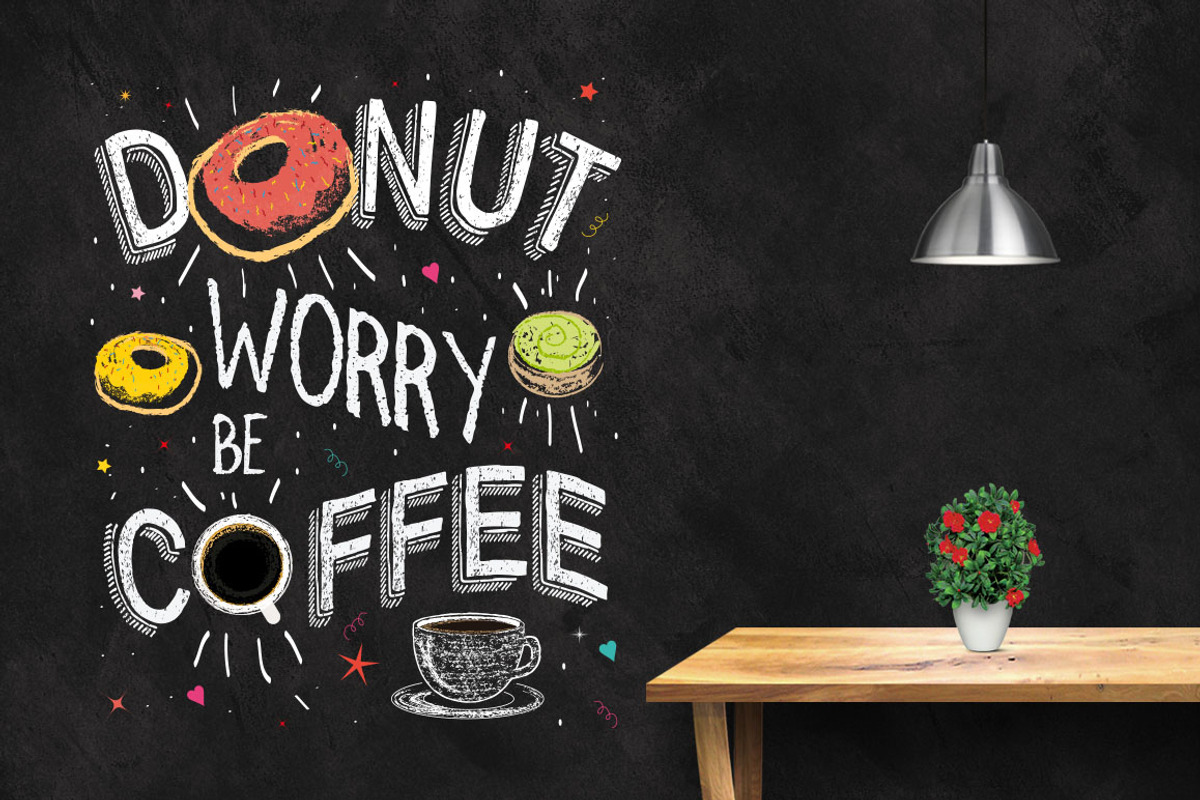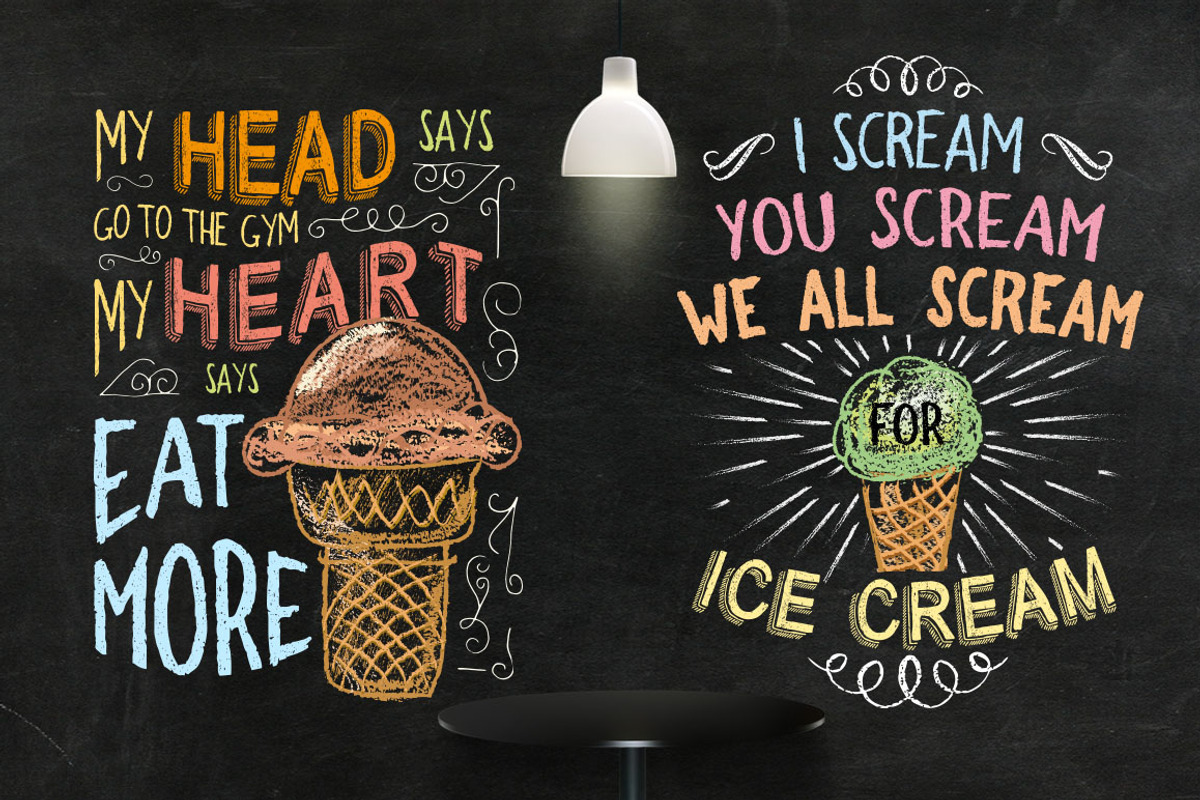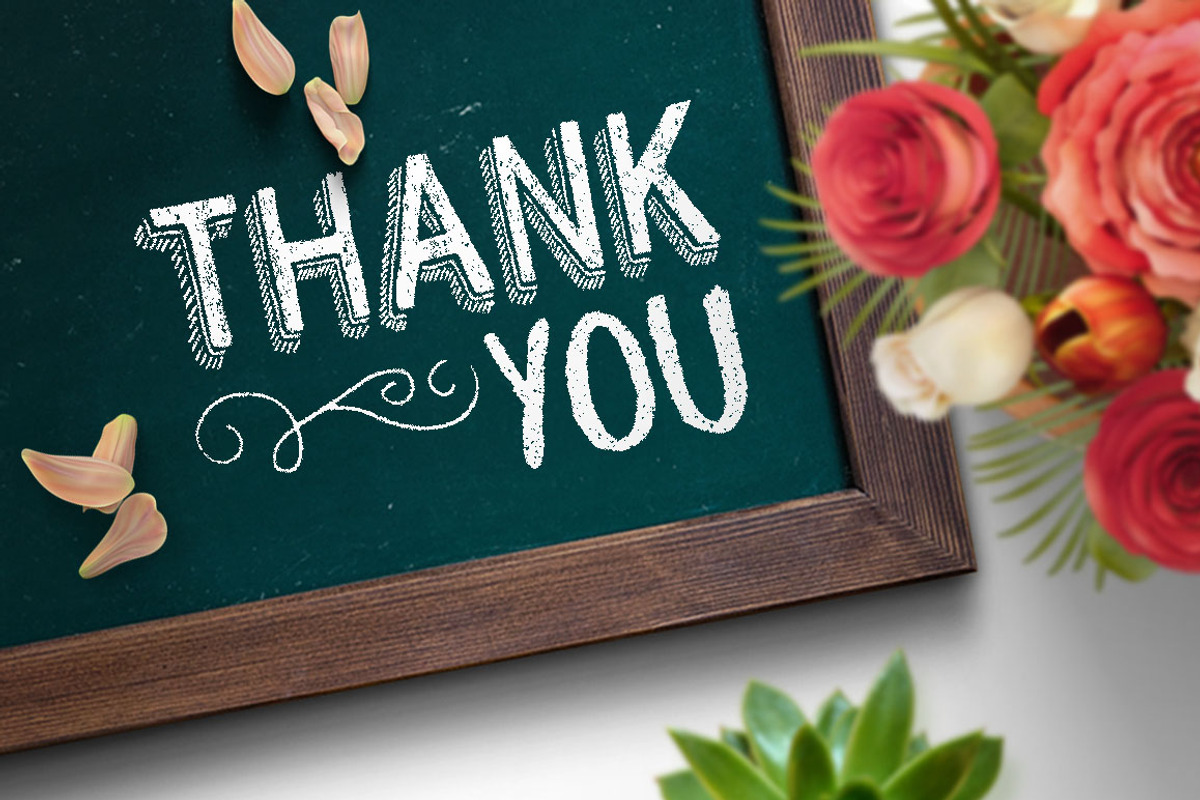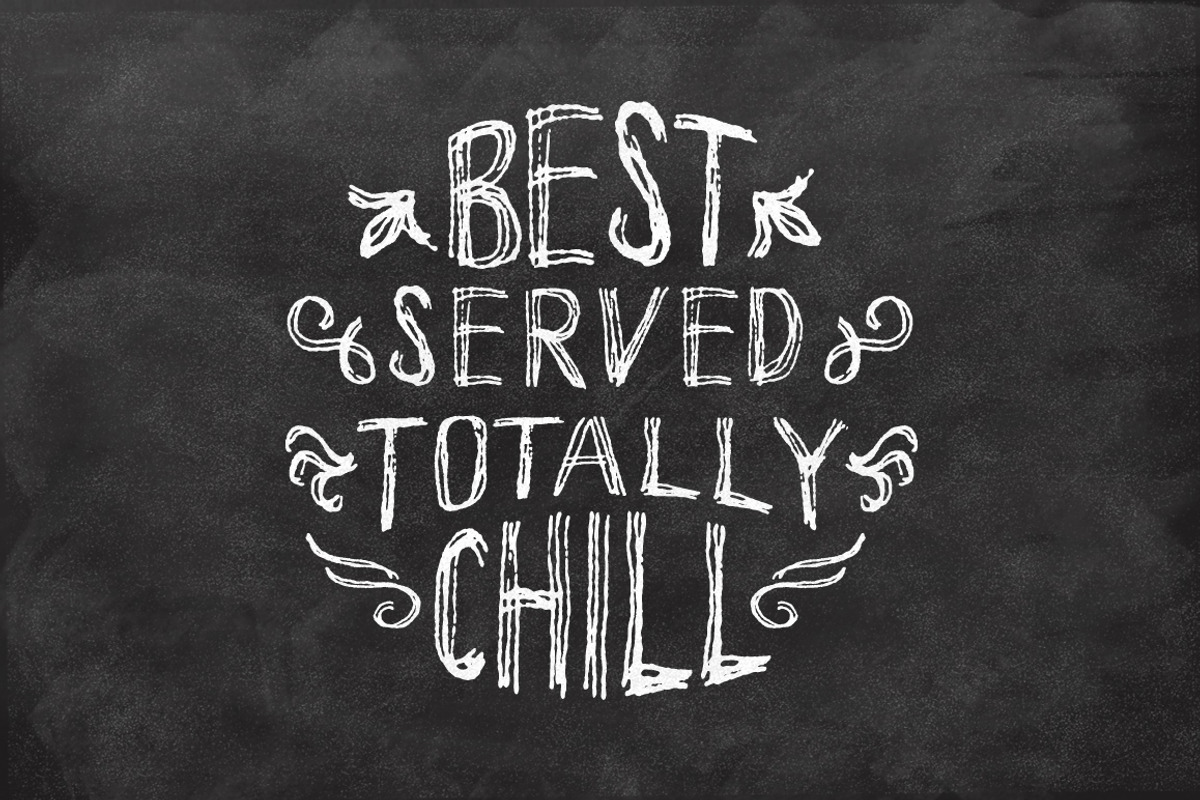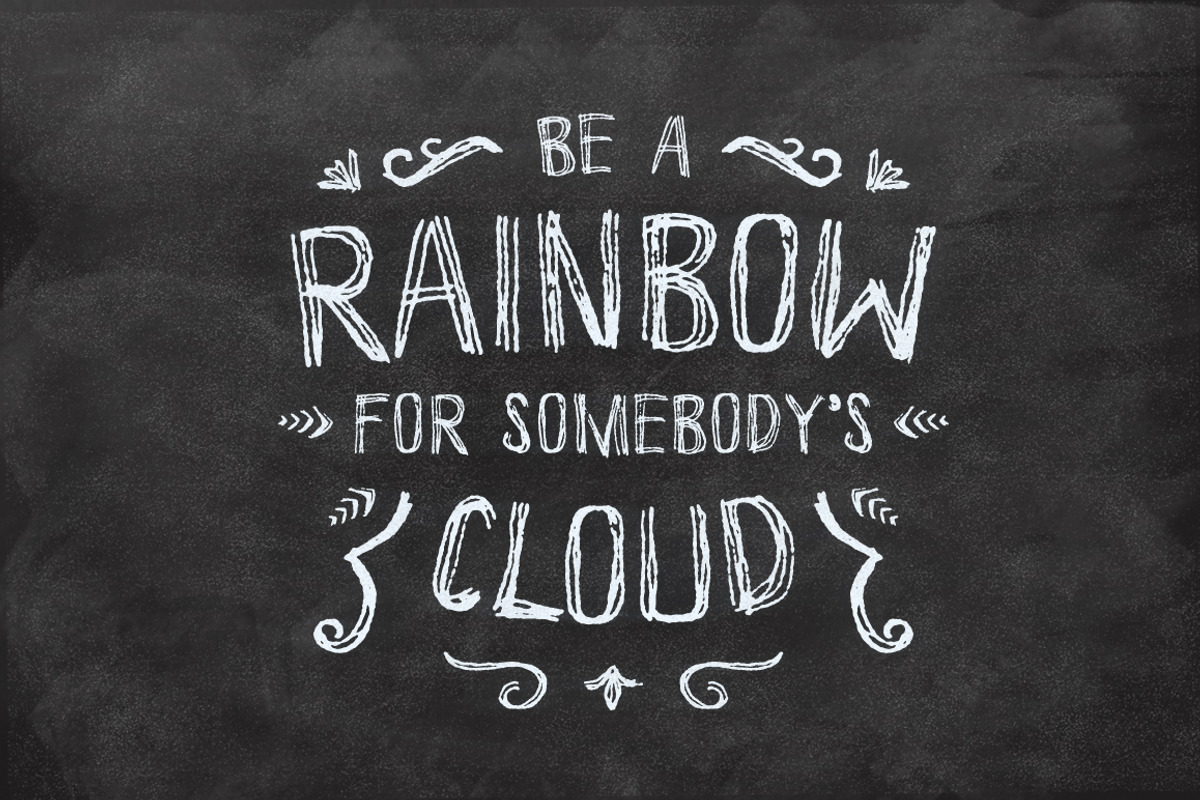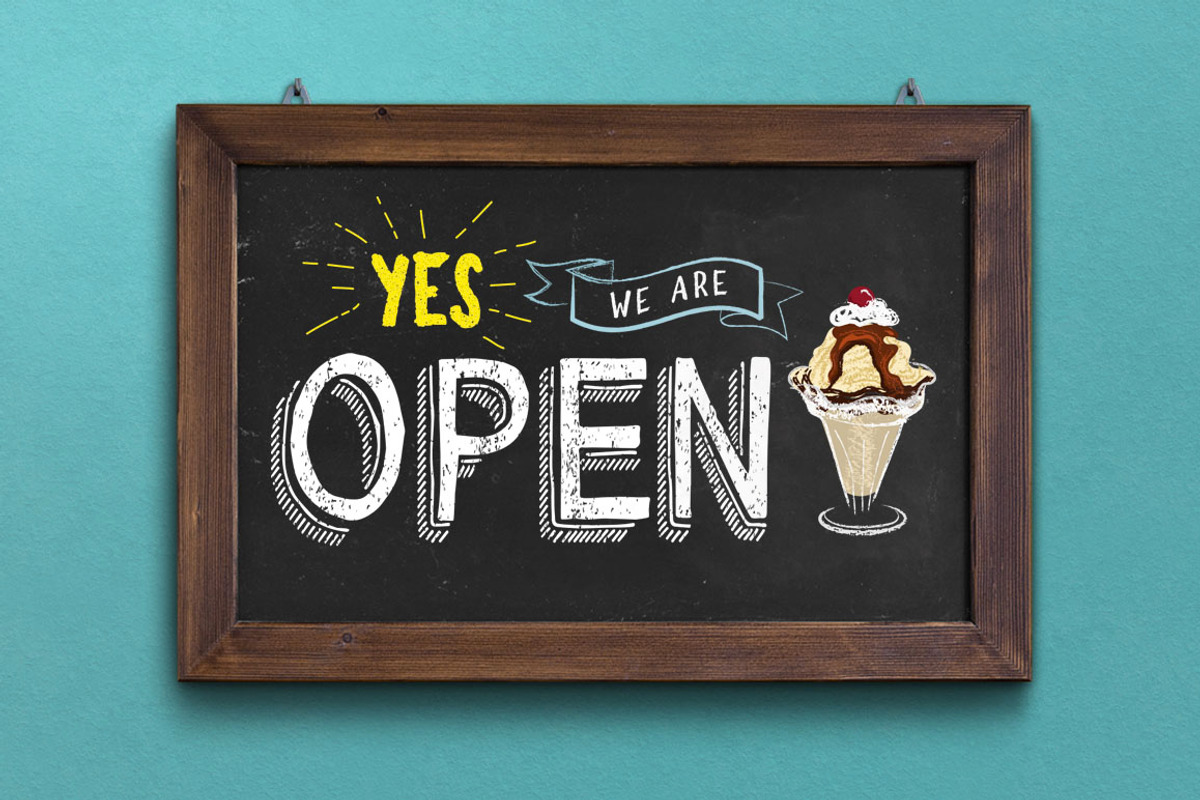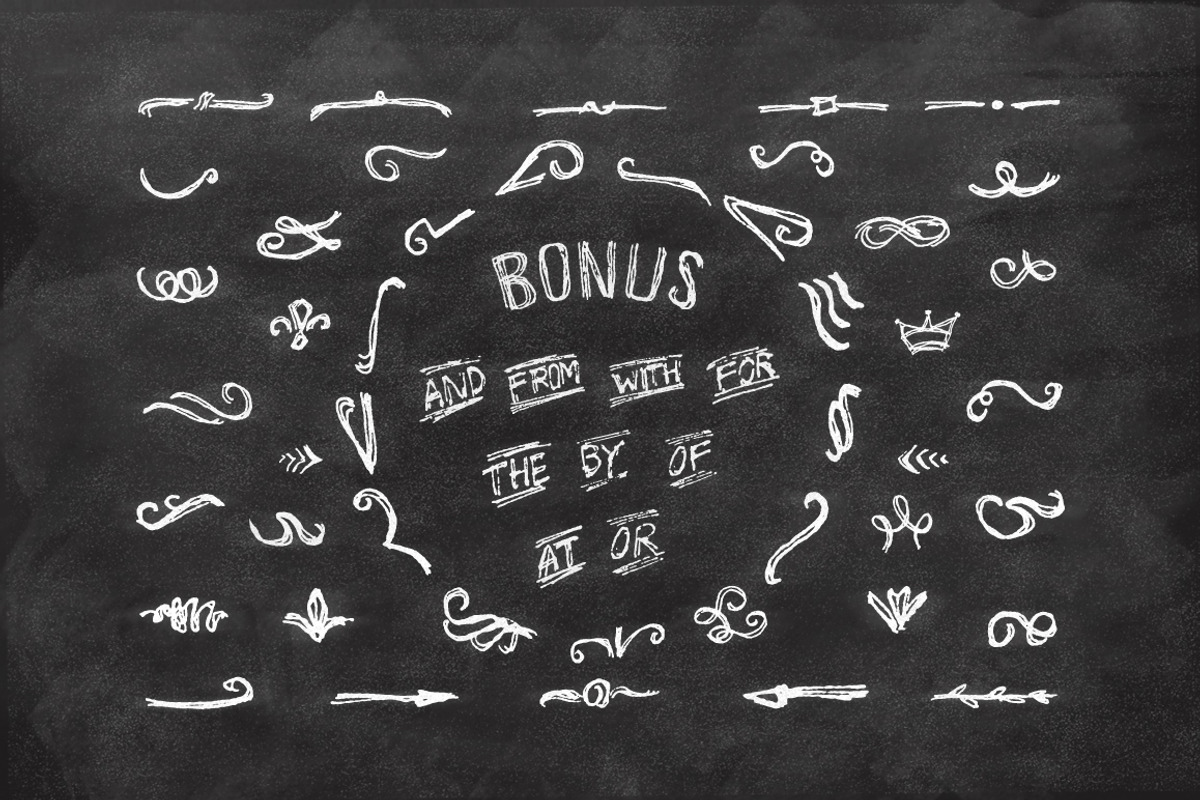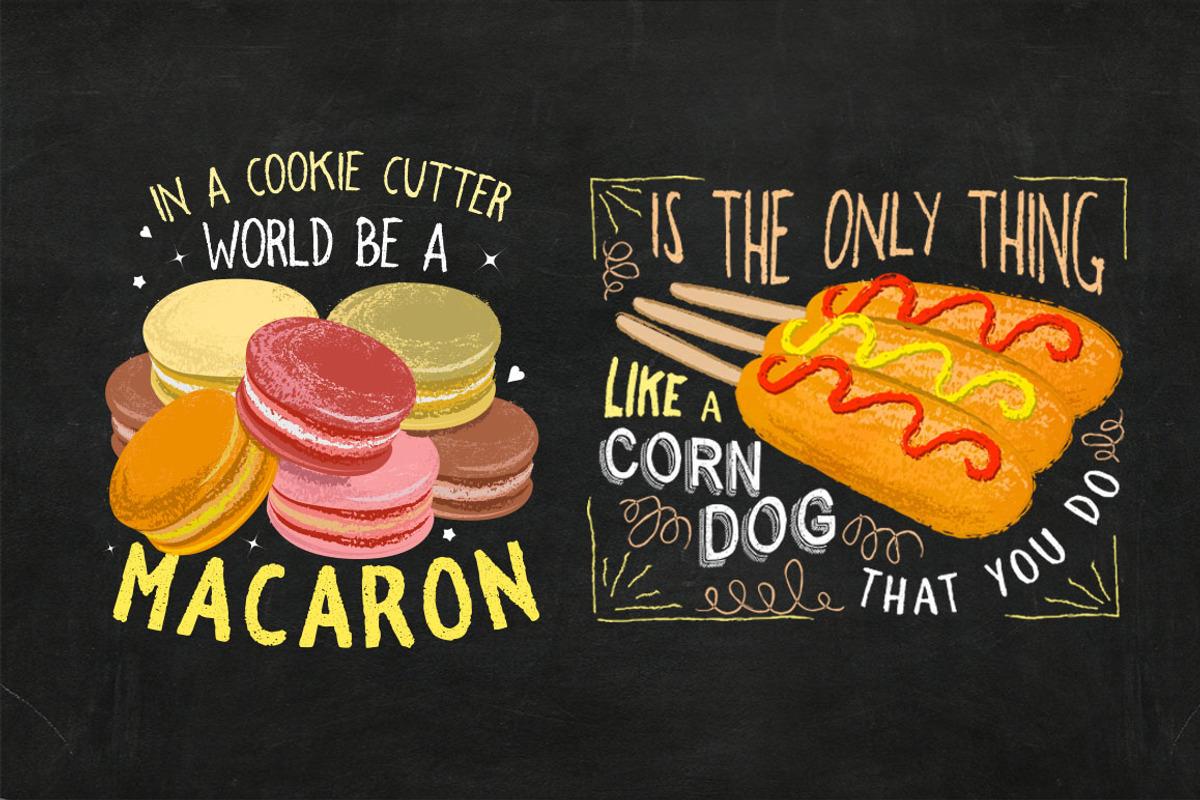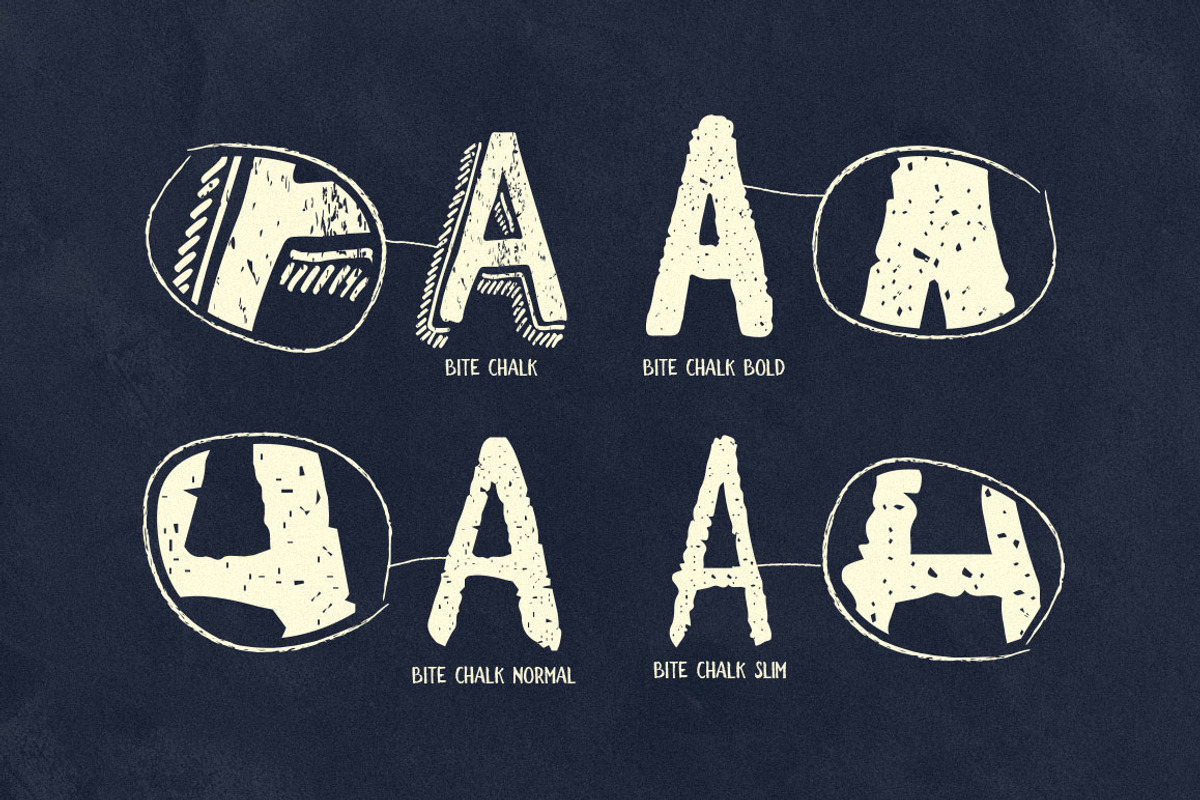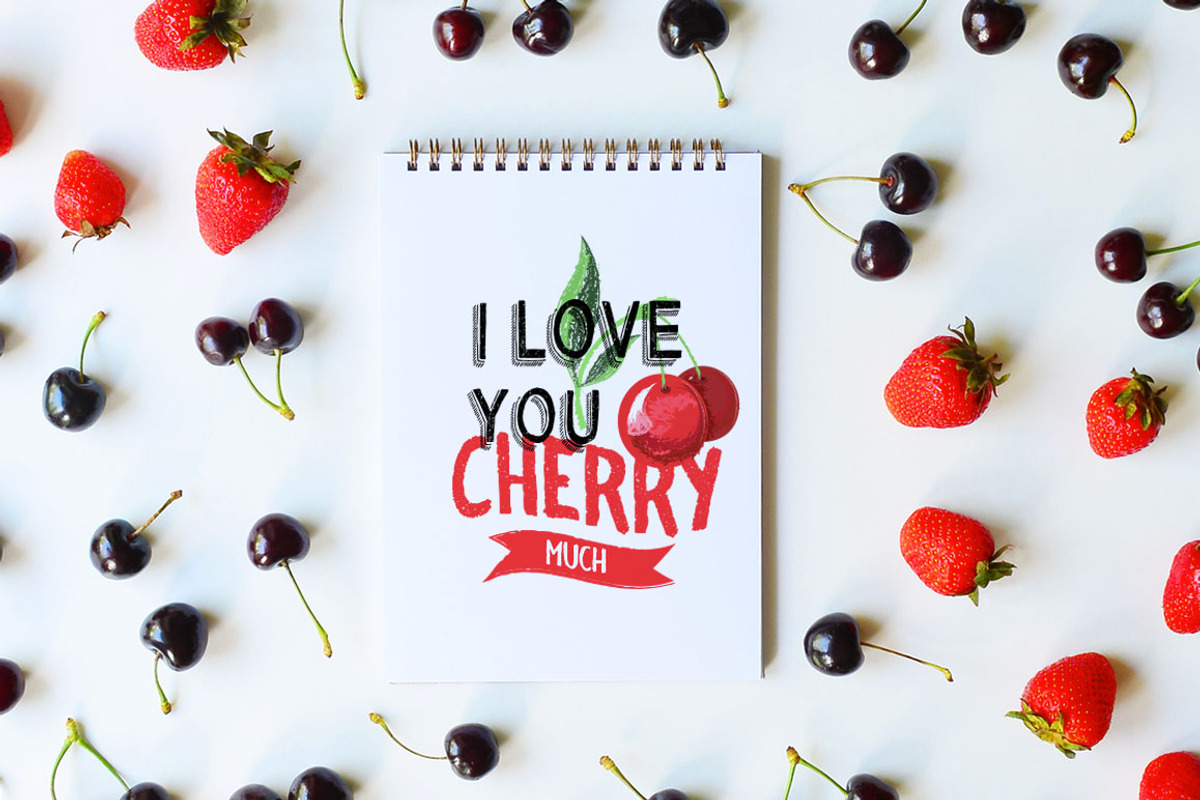
3 IN 1 Chalk Fonts Bundle + Extras
This package is 3 amazing Chalk typeface + awesome extras
This is good for projects like a menuboards it's specially designed cafe or restaurant ,background photoboots wedding, t-shirt, posters,etc and a touch of vector pack theme dessert, that allows you to mix and match pairs of ornaments to fit your design
BiteChalk Typeface :
LaChalk Typeface :
VanderChalk Typeface :